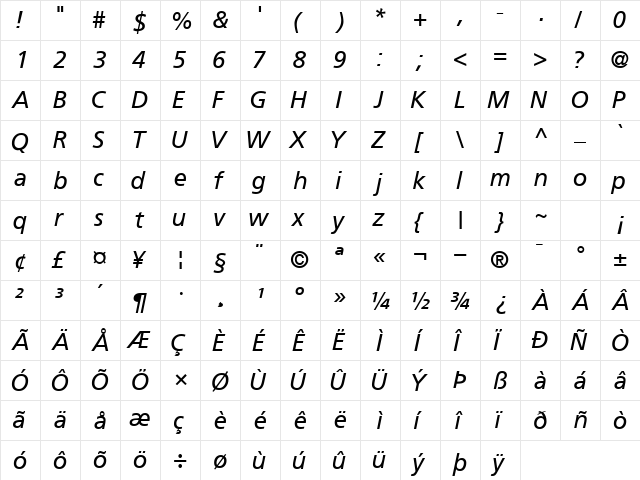
PalmaSSK Italic
Design Context for PalmaSSK Typeface
PalmaSSK offers clean, dependable letterforms without strong stylistic allegiance, making it a practical choice for designers who need flexibility. The slanted form adds forward momentum and visual energy.
Pro Tip: Try PalmaSSK for annotation and caption copy alongside an upright companion — the contrast in angle creates a dynamic but ordered typographic system.